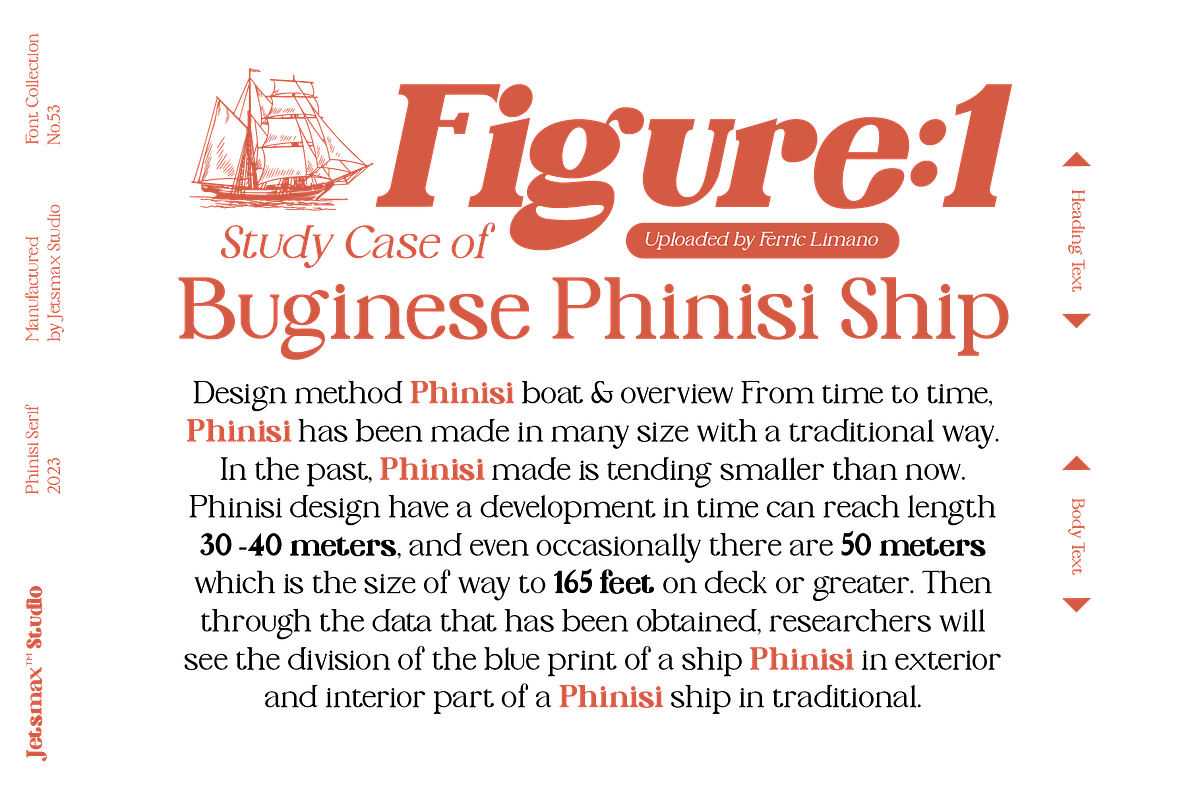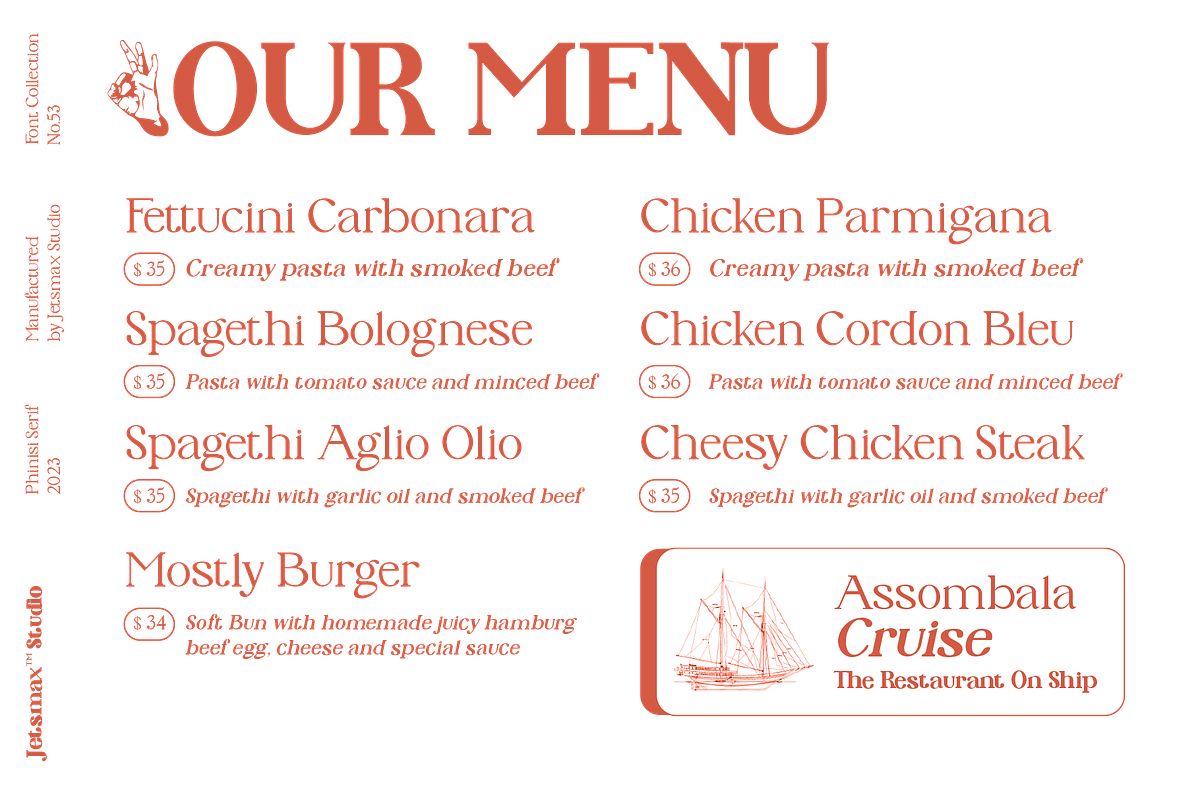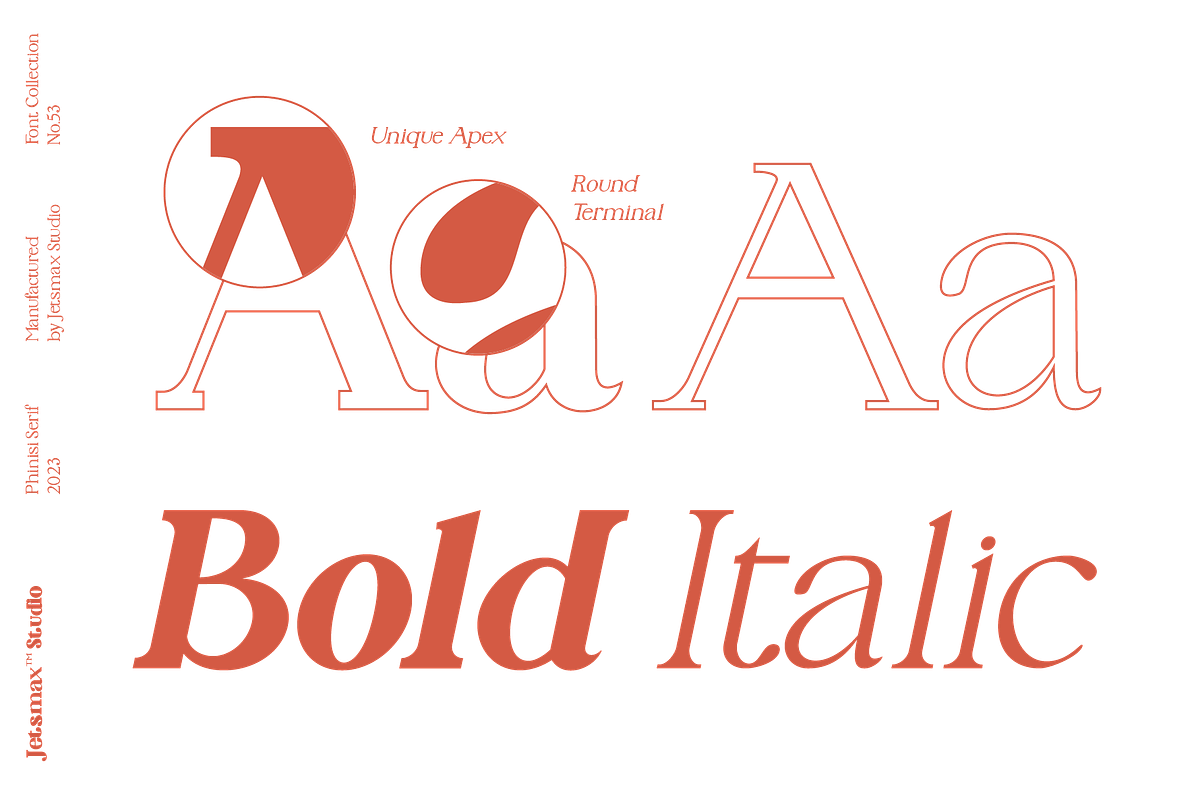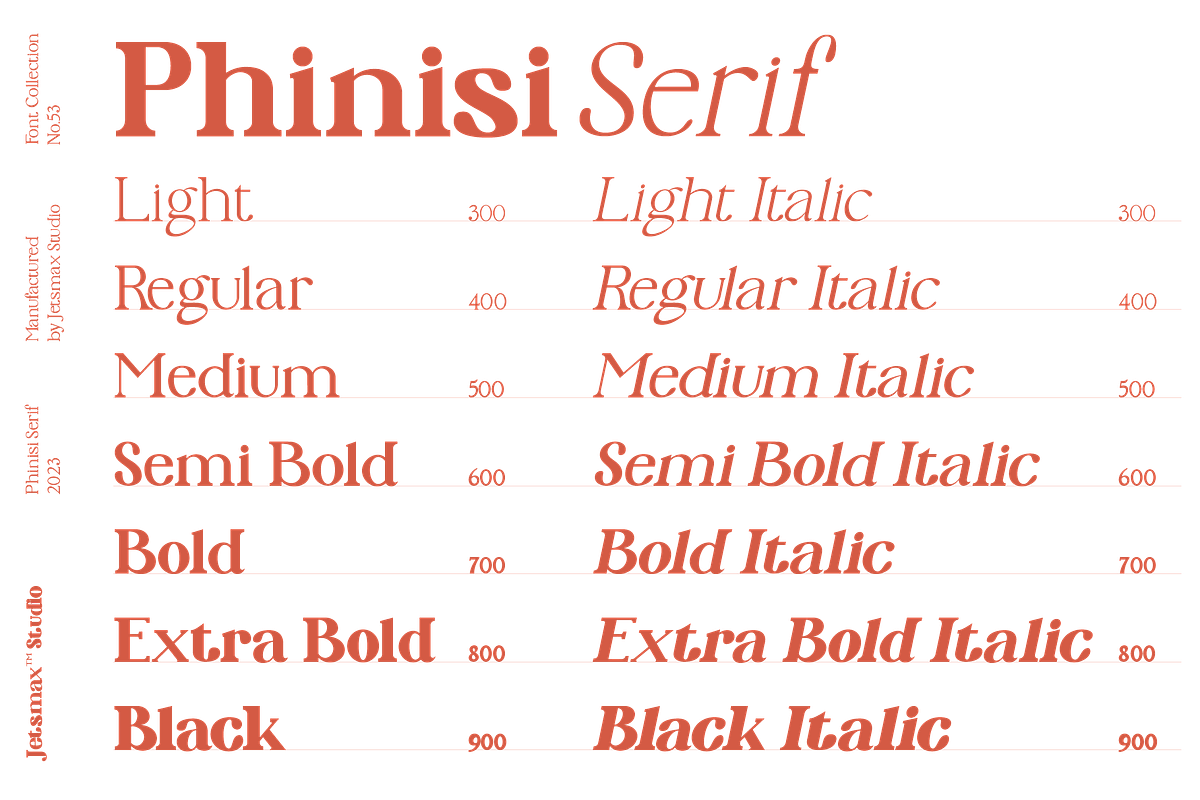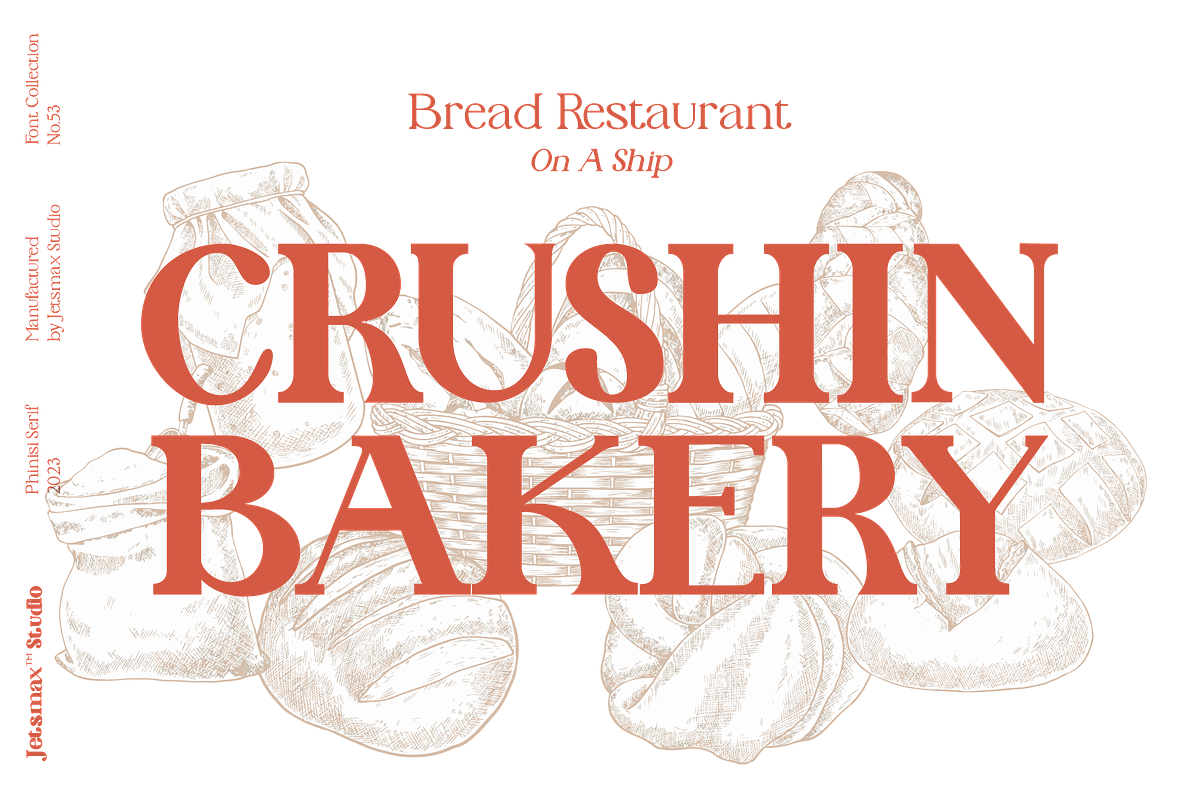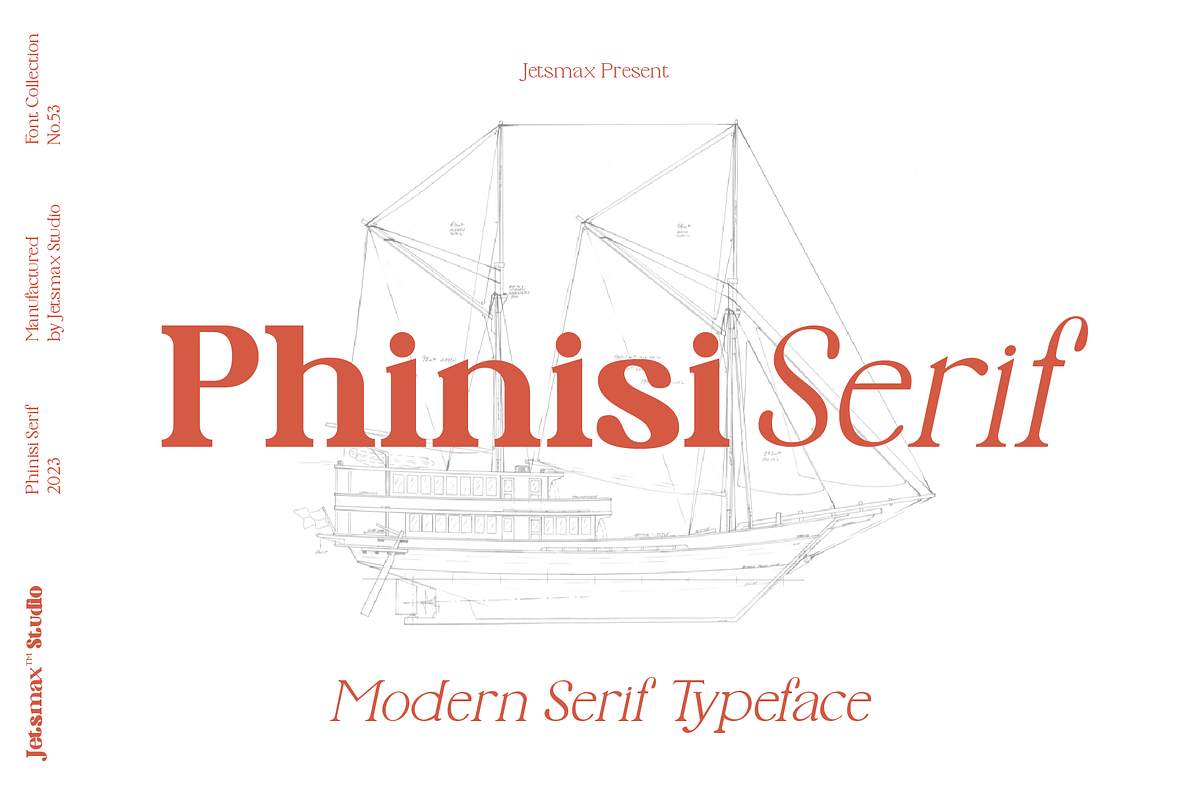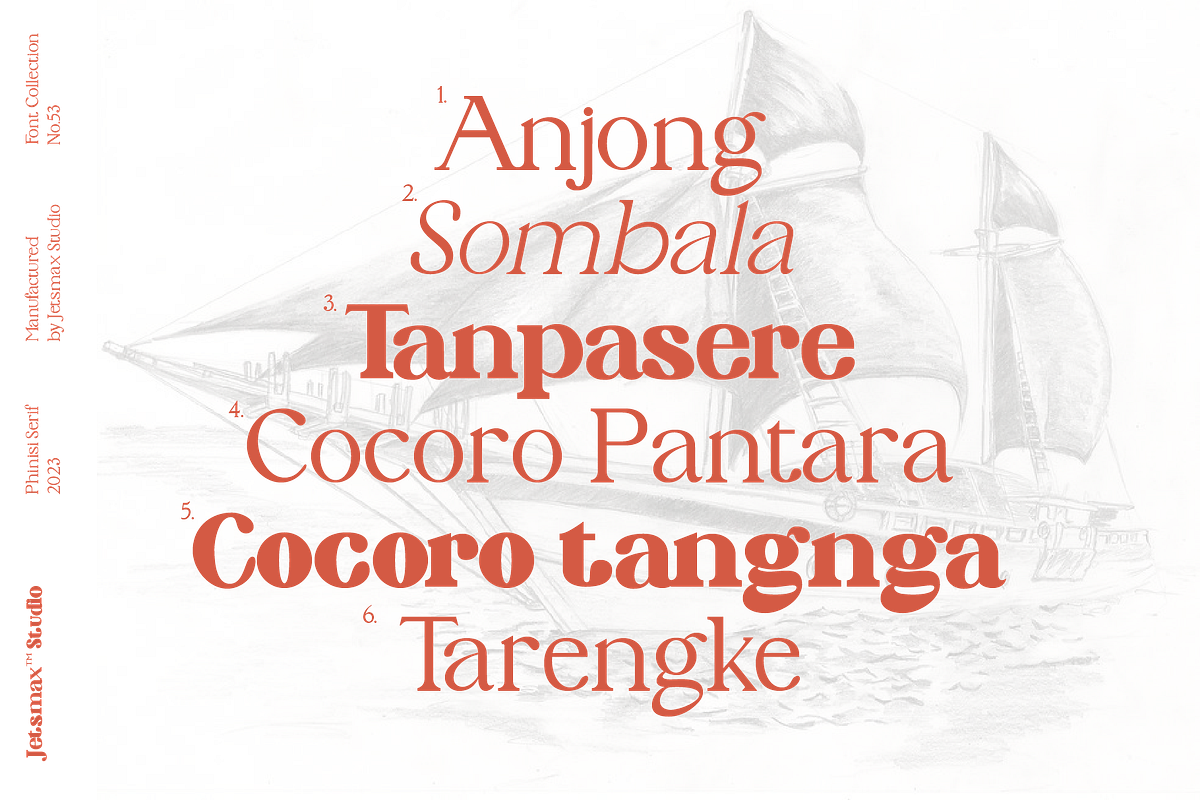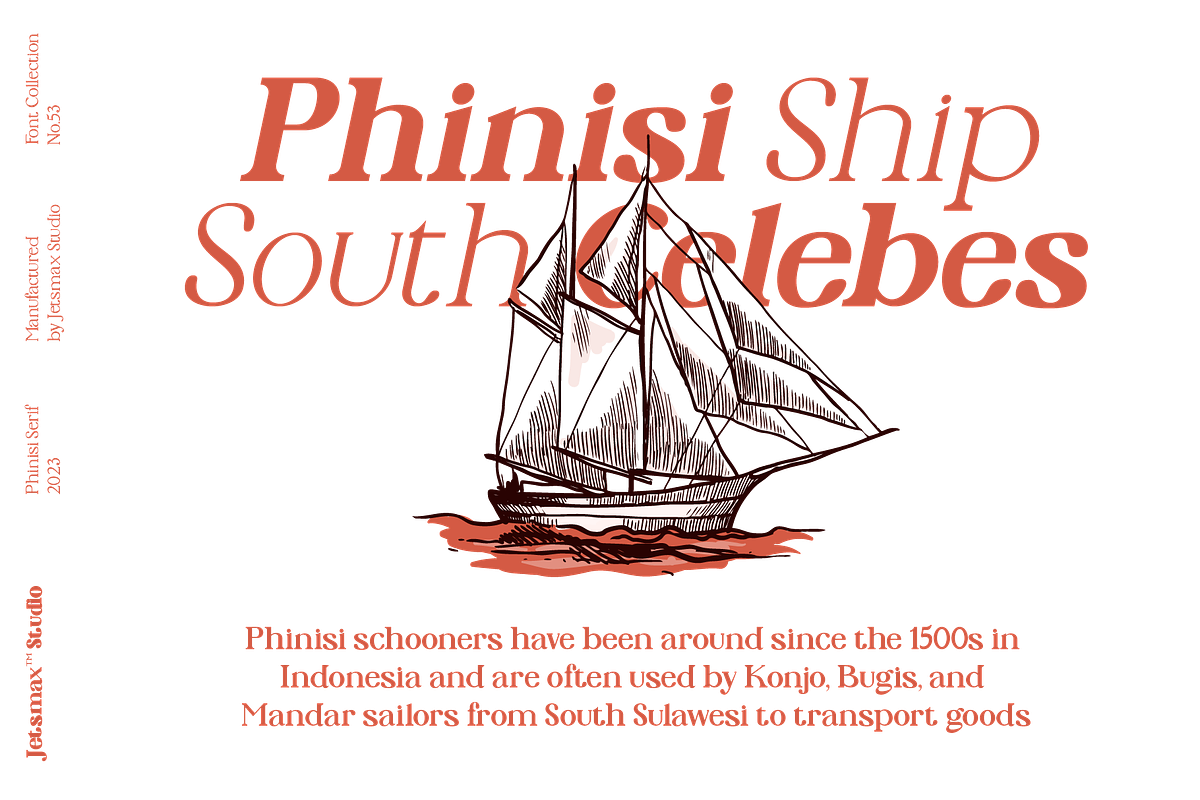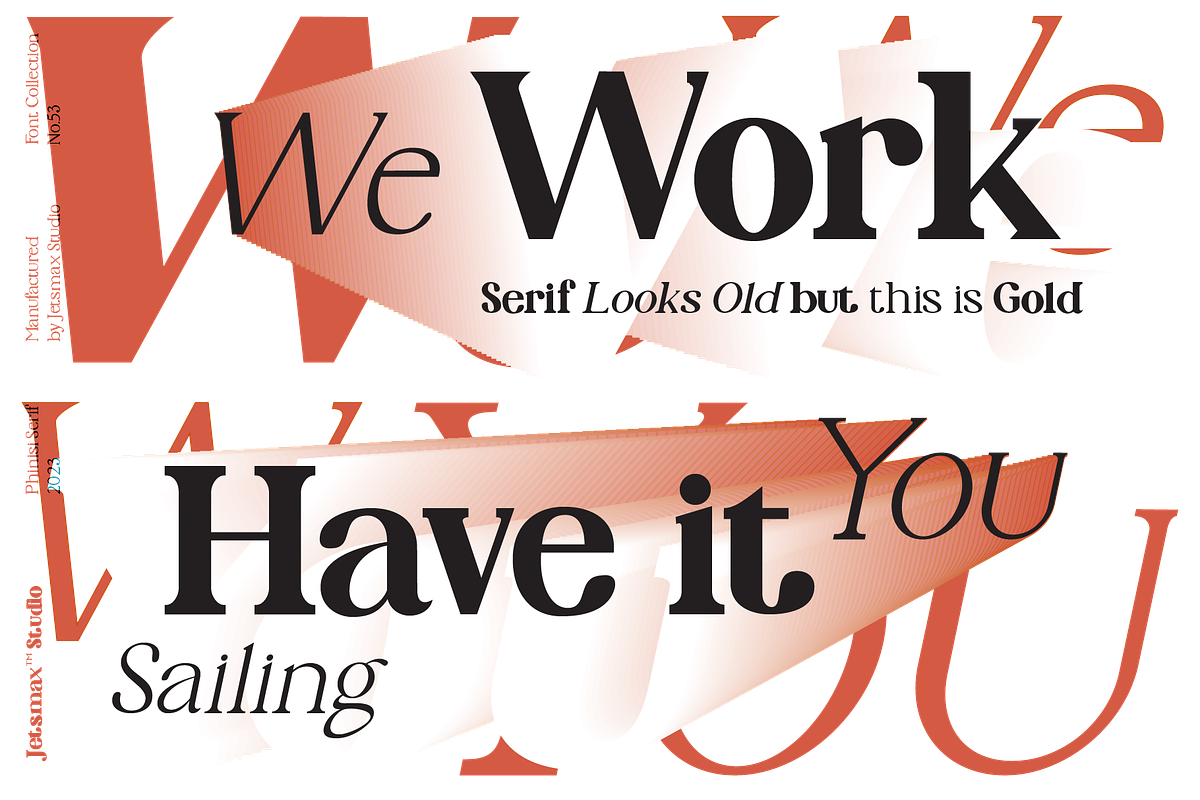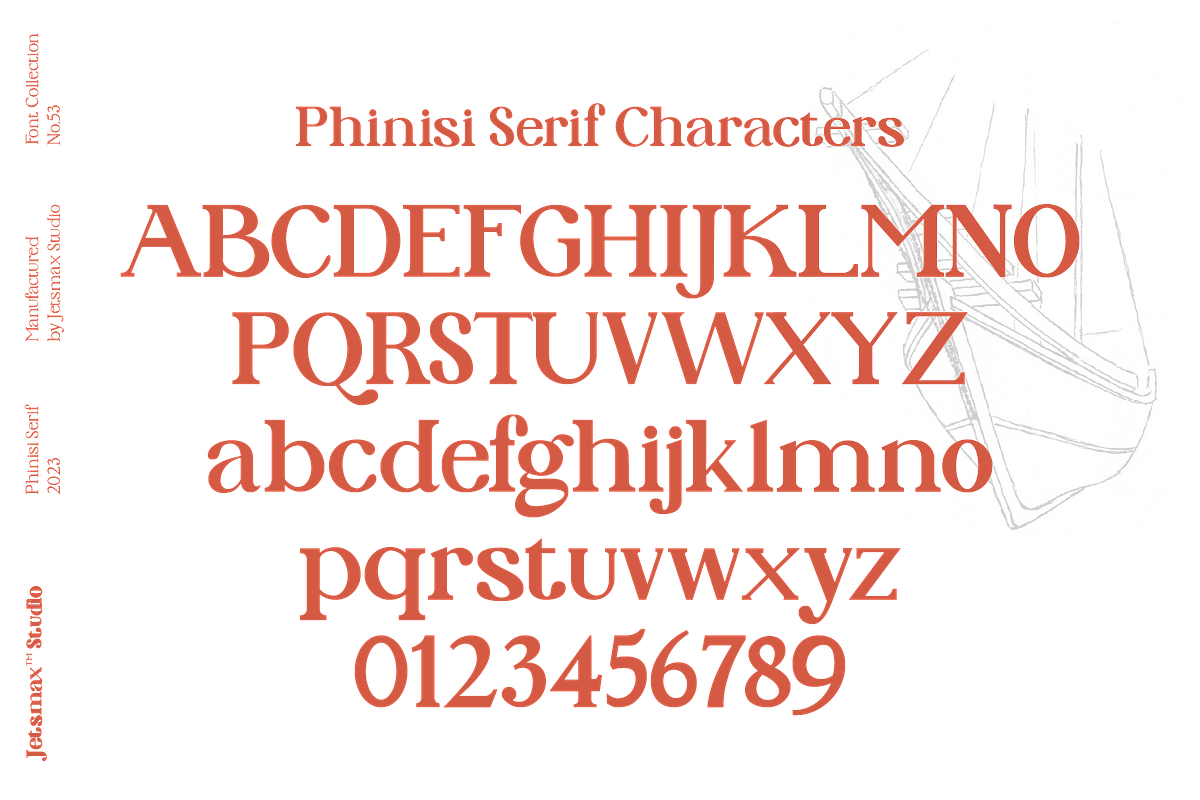
Phinisi Serif
Phinisi Serif is a modern meets classic, with variety of weight and style this typeface has, it embodied the term of versatile. It’s elegant yet readable and text friendly, perfect for wide range of project from formal editorial to fun and exciting look.
- Alternate Character, Fraction, Stylistic Alternate, Standard Ligature & Unique